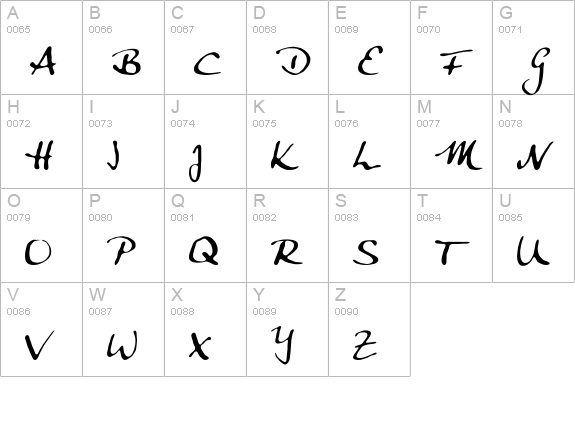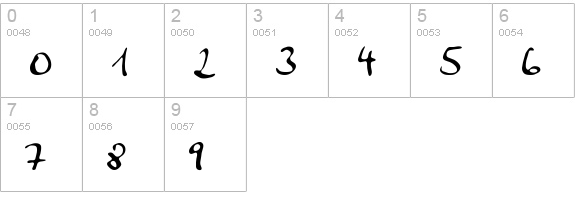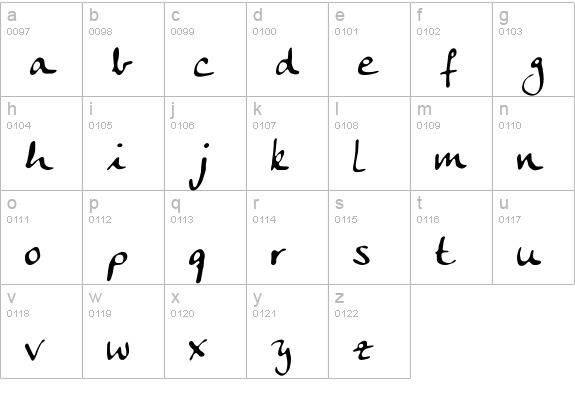
AnkeCalligraph Font Details
AnkeCalligraph font is a stunning and elegant typeface that exudes sophistication and charm. Its delicate strokes and graceful curves make it perfect for adding a touch of class to any project. Whether you're designing invitations, logos, or branding materials, AnkeCalligraph font will elevate your work to the next level. The beauty of AnkeCalligraph font lies in its versatility - it can be used for both formal and informal designs, making it a must-have in any designer's toolkit. Its timeless appeal and classic style will stand the test of time, ensuring that your designs always look fresh and modern. Best of all, AnkeCalligraph font is available for free download at FontsMarket.com. This means that you can add this exquisite typeface to your collection without breaking the bank. Don't miss out on the opportunity to enhance your designs with the elegance of AnkeCalligraph font - download it today and see the difference it can make!